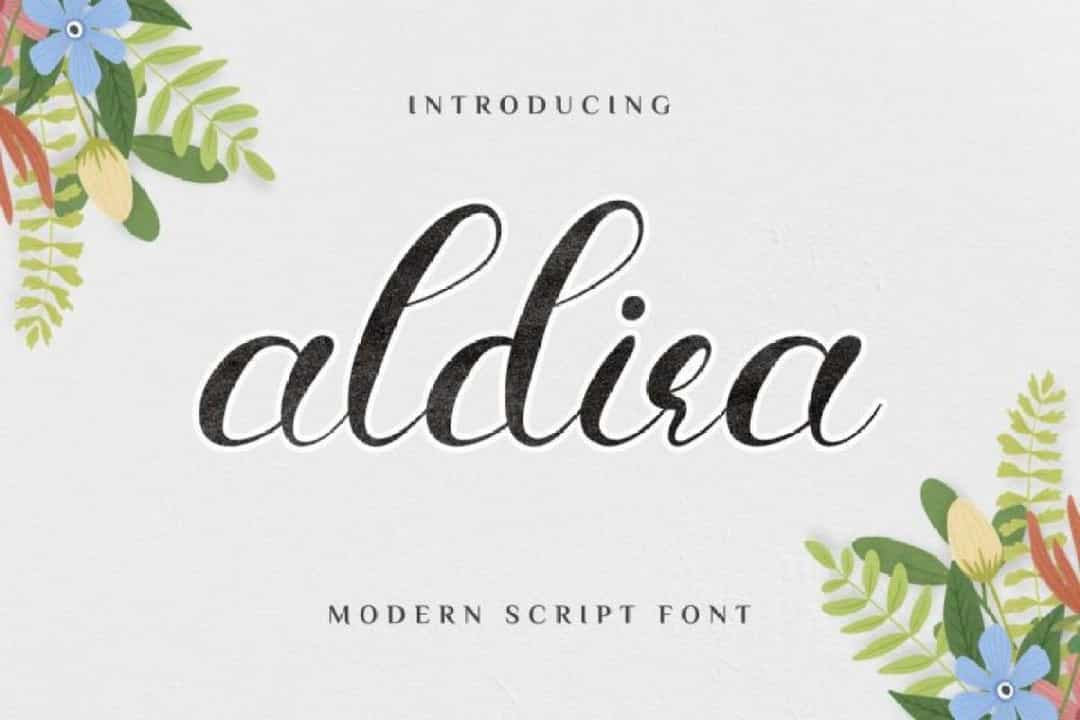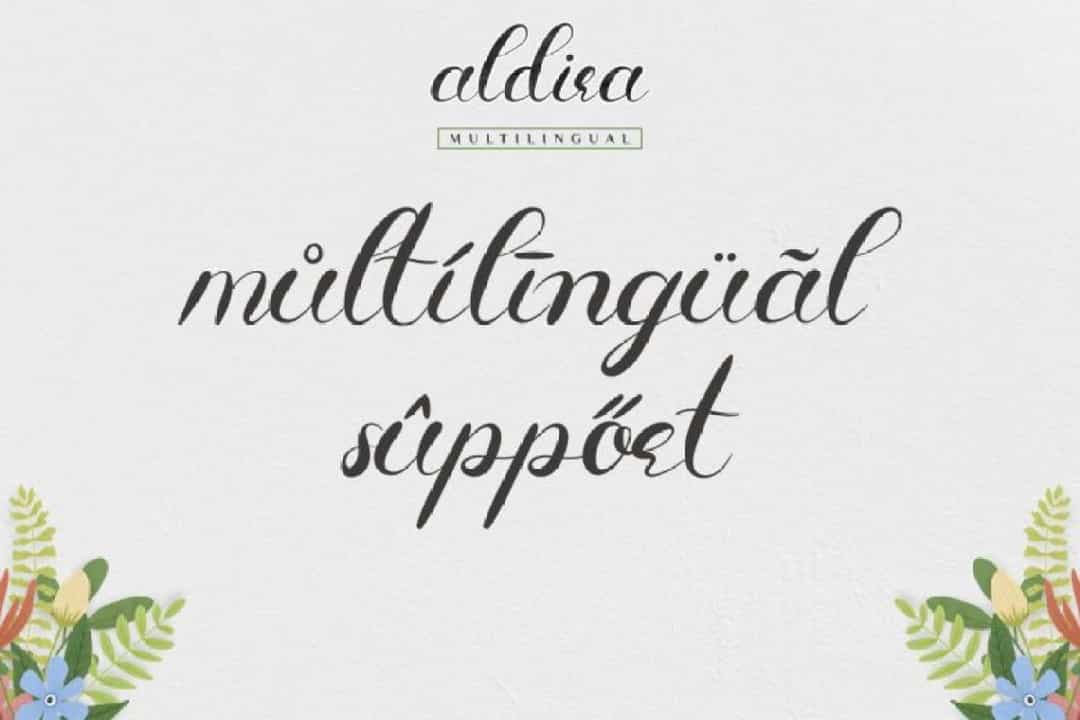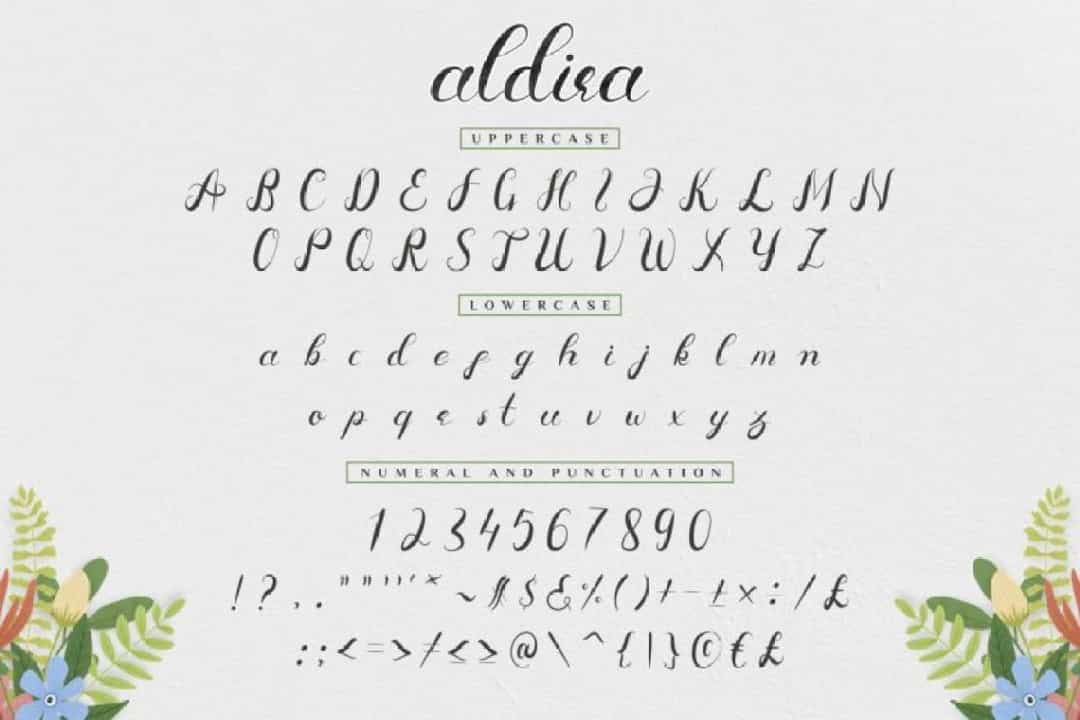
Aldira can be described as an original script typeface that is a calligraphy that features brush-style. The font is stunning with a gorgeous characters set that is perfectly managed by kerning and spaced well. The is elegant, timeless, fashionable classic and sophisticated calligraphic style.